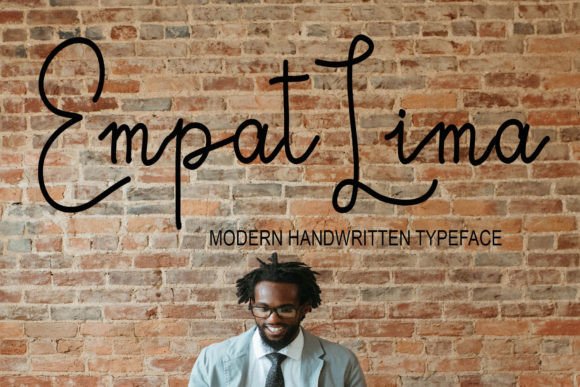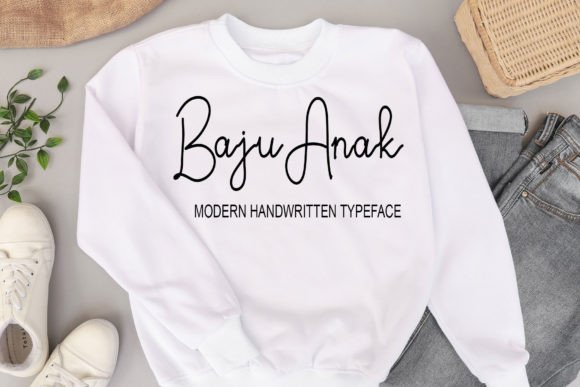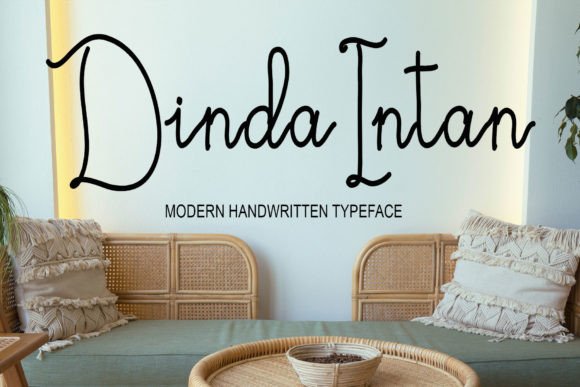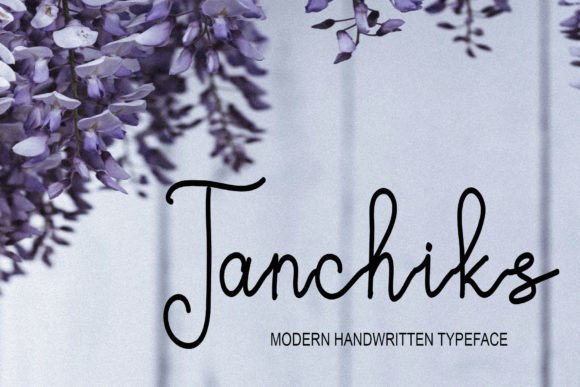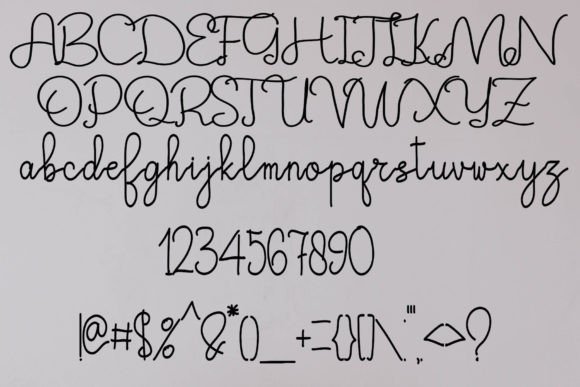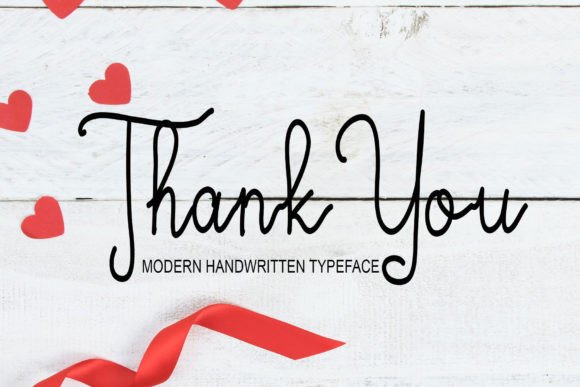
Empat Lima Font
About Empat Lima Font
A Cool and Simple Handwritten Typeface
The Empat Lima Font download brings a fresh, simple, and effortlessly stylish handwritten look to your creative projects. Created using a digital tablet, this font maintains a natural, hand-drawn feel while offering versatility for a wide range of uses.
Whether you’re working on branding, personal designs, or online content, Empat Lima adds a relaxed yet confident tone. Despite its simplicity, it exudes modern charm and aesthetic appeal.
Designed for Versatile Use
Empat Lima Font is ideal for:
• Websites and digital content
• Wedding invitations and stationery
• Business cards and personal branding
• Signatures and logos
• Product packaging and ad creatives
Thanks to its clean lines and natural flow, this font complements both casual and professional design styles.
Make Your Projects Stand Out
Although minimal in appearance, Empat Lima offers just the right touch of style and personality. It’s easy to read, visually appealing, and works well in both small and large text applications.